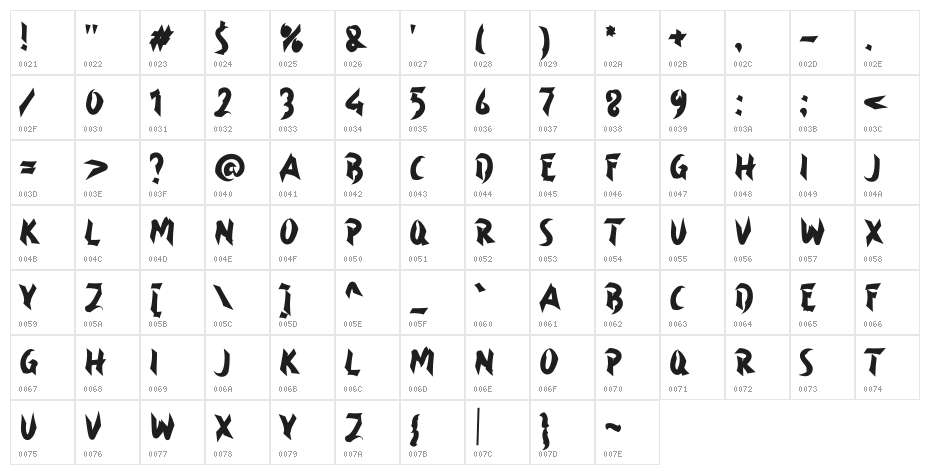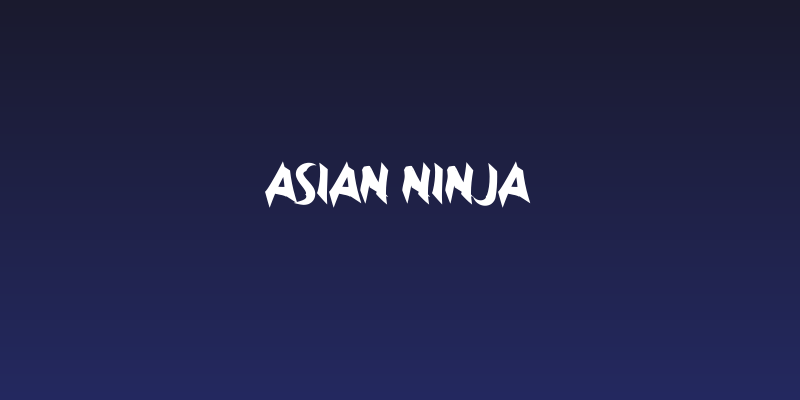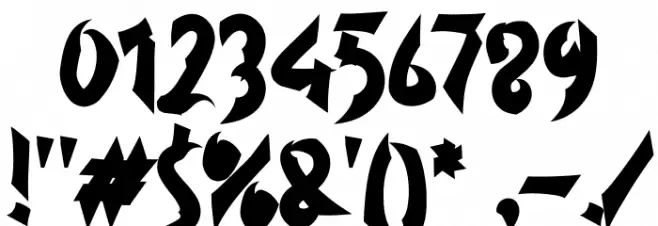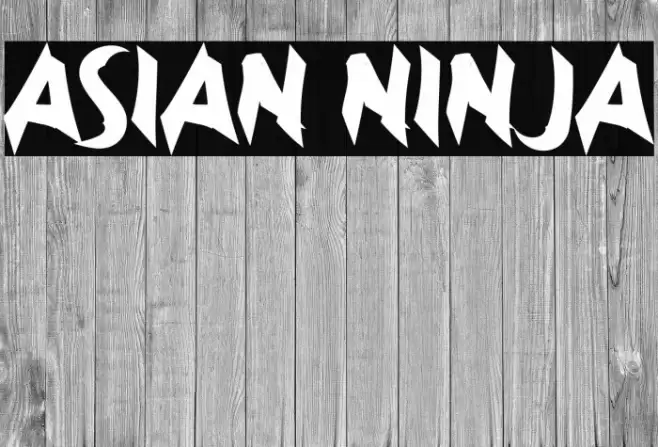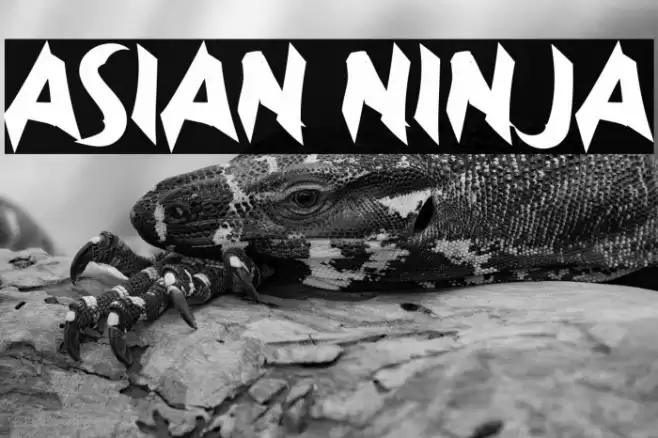
Asian Ninja Font
✎ Calligraphic
Asian Ninja Description
This font features a bold and dynamic style with sharp, angular edges and a distinctly aggressive appearance. The characters are designed with a high level of contrast, showcasing thick strokes that taper into fine points, reminiscent of traditional Asian calligraphy blended with a modern, edgy twist. The uppercase and lowercase letters maintain a consistent style, with unique, stylized forms that convey a sense of movement and energy. The numerals and special characters are equally bold, integrating seamlessly with the overall aesthetic. This font is ideal for projects that require a strong, impactful visual presence.
| Overall Style | Modern, Decorative |
| Proposed Projects | Ideal for use in graphic novels, video game titles, martial arts event posters, or any project requiring a bold, dynamic aesthetic. |